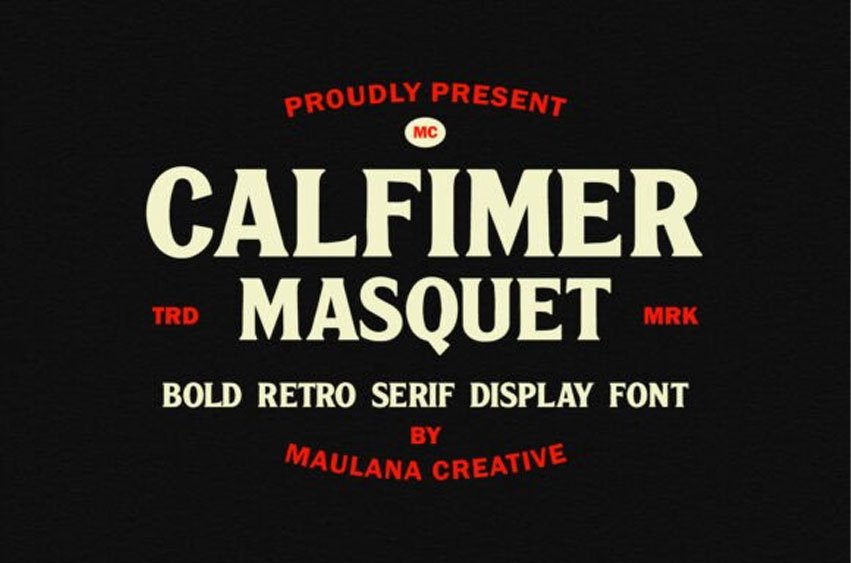
Calfimer Masquet Font is a bold, retro serif display typeface that drips with vintage charisma. This Calfimer Masquet typeface features heavy, flared serifs and a sturdy structure that feels like it was pulled from a 1970s sports magazine or a classic motor brand.
It is an ideal choice for vintage-style logos, masculine branding, and high-impact poster design. Because of its nostalgic weight, the Calfimer Masquet font pairs perfectly with textured overlays and “retro” color palettes like burnt orange and cream.
Use this Calfimer Masquet typeface to establish a sense of heritage and rugged authority in your designs, making it the perfect centerpiece for merchandise, signage, and bold editorial headers that require a timeless, retro-cool vibe.